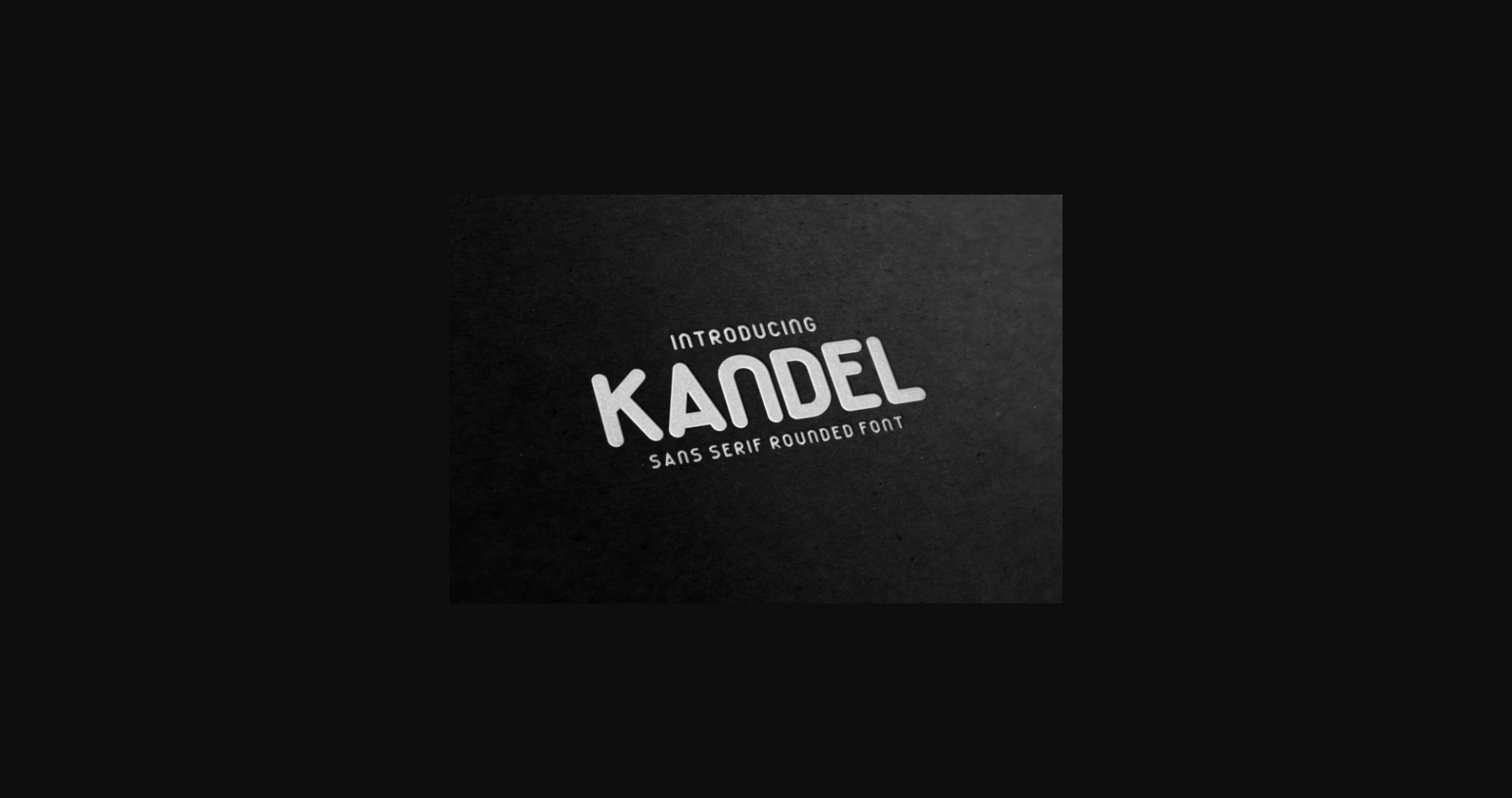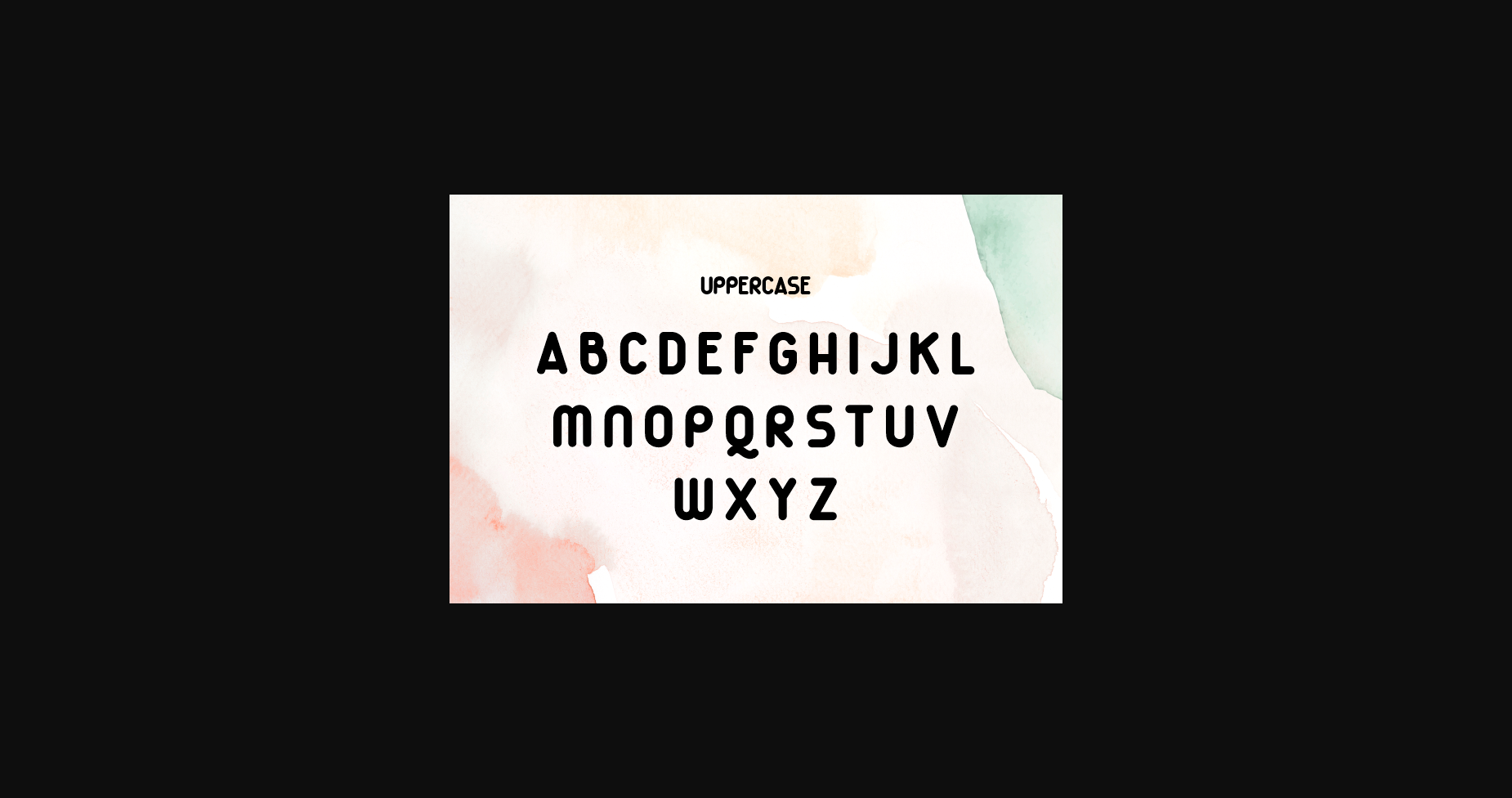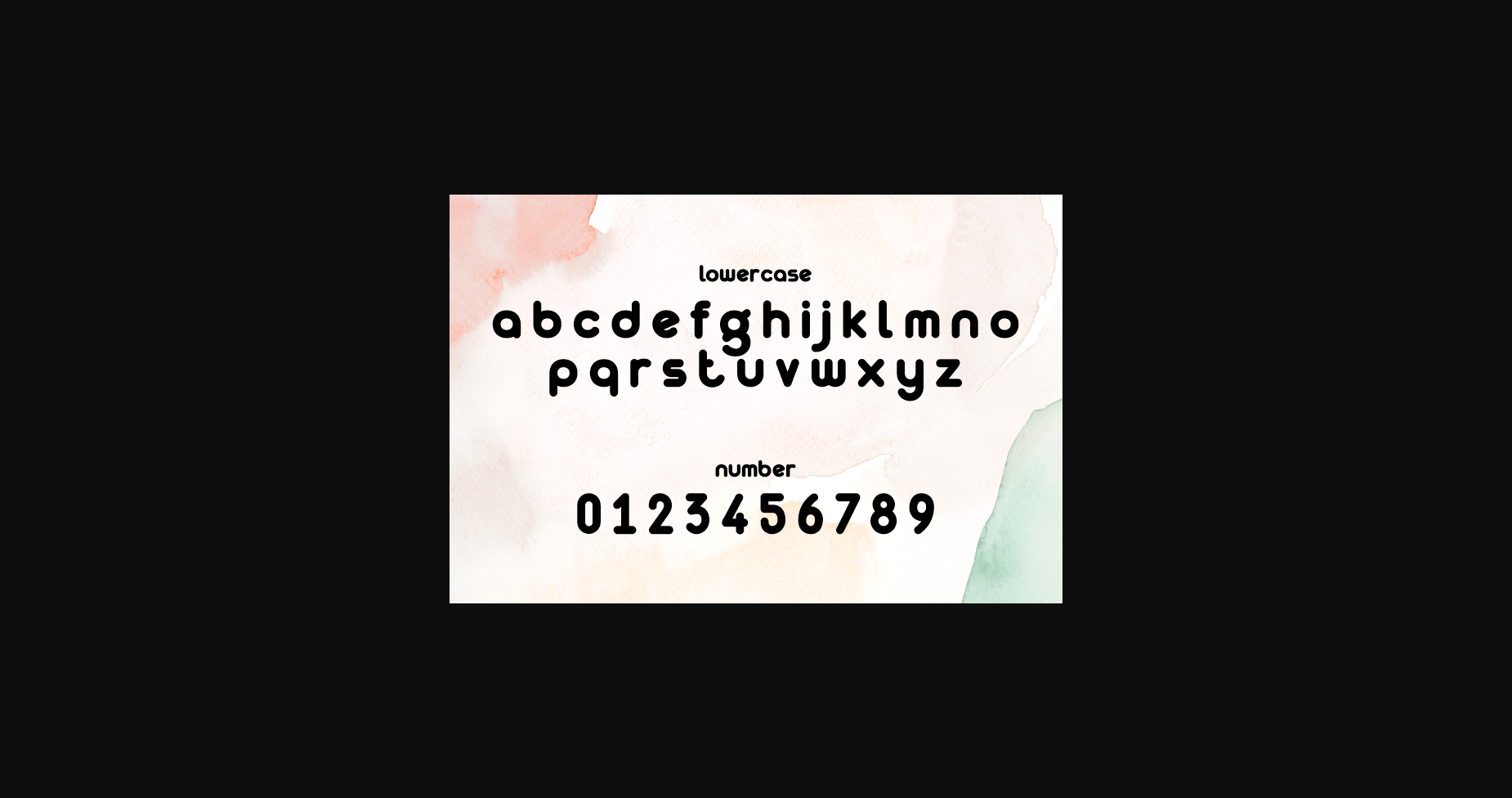
About Kandel Font
Kandel is simple and minimalist sans serif font. Kandel features the geometric and soft approach of the original typeface but comes in a full range of weights. You can use this font for branding purposes, advertising, poster design, book covers, headlines, prints, merchandise, websites, magazine, album covers, or quote designs.